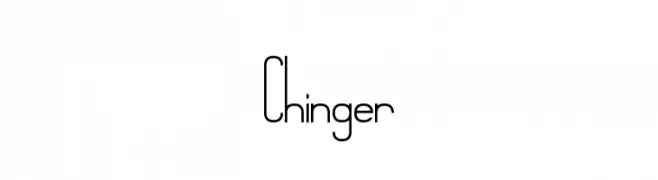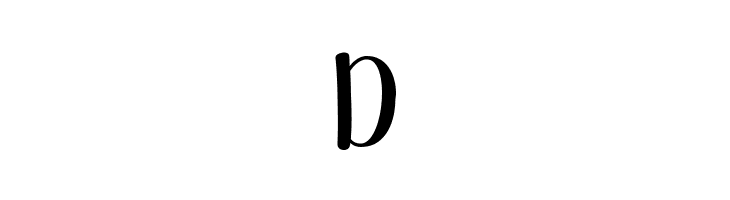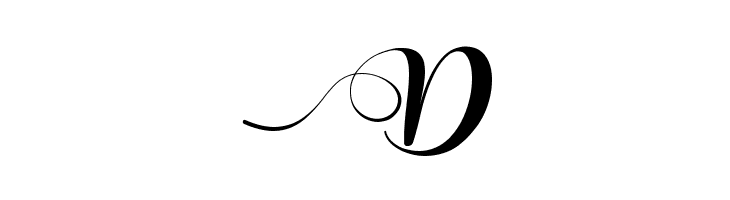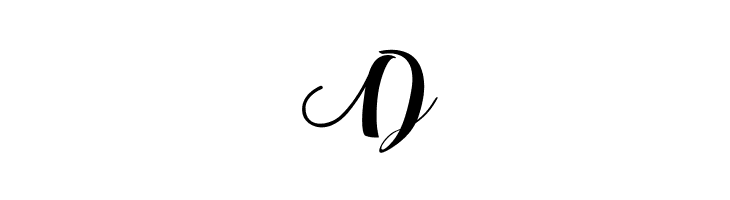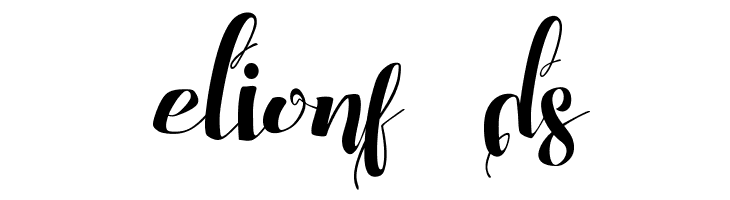
A sleek, modern font with elongated, narrow characters and clean lines.
A bold, geometric font with a futuristic, industrial style.
A playful, hand-drawn font with bold, rounded characters.
An elegant script font with ornate, flowing letterforms and decorative flourishes.
A playful, handwritten font with bold, dynamic strokes and whimsical flourishes.
A whimsical, festive script font with decorative elements like stars and hearts.
A festive, cursive font with elegant loops and swirls, perfect for holiday themes.
A playful, hand-drawn font with irregular strokes and a whimsical style.
A festive, elegant script font with intricate swirls and loops.
A playful and whimsical script font with bold, rounded letters and decorative swirls.